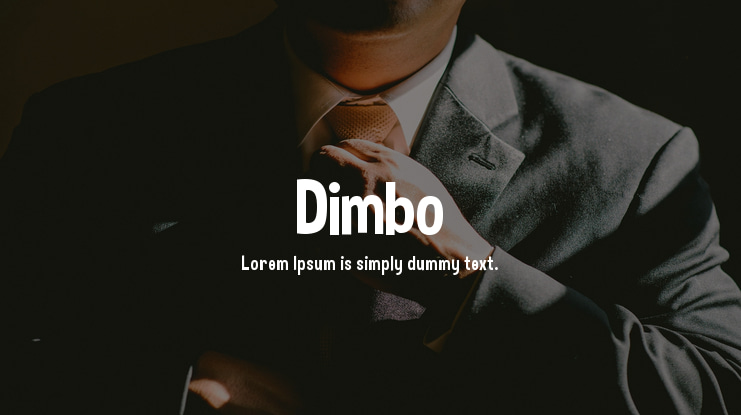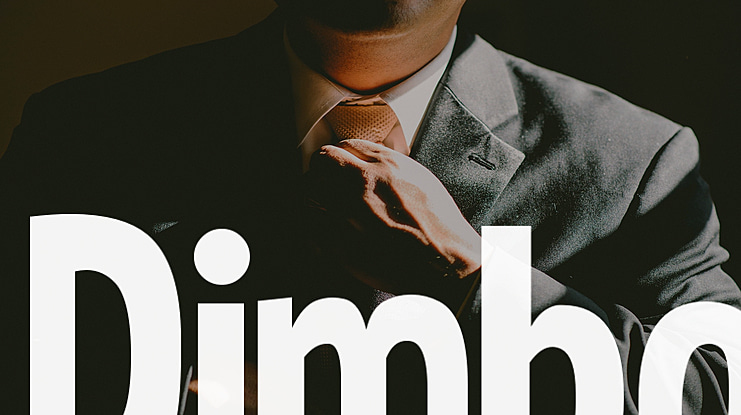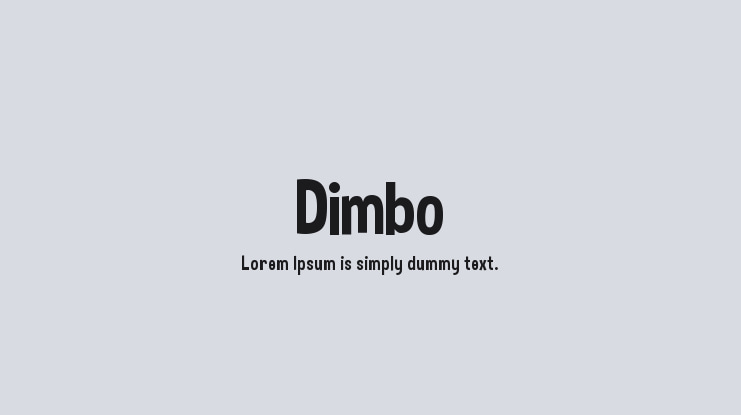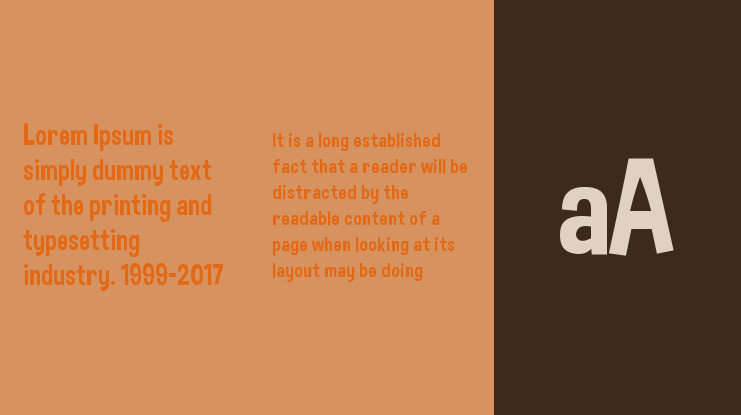
Dimbo Font Family
Jayvee D. Enaguas (Grand Chaos)
This font has inspired from 'Senorella and the Glass Huarache' and it has created by Jayvee D. Enaguas (Grand Chaos).